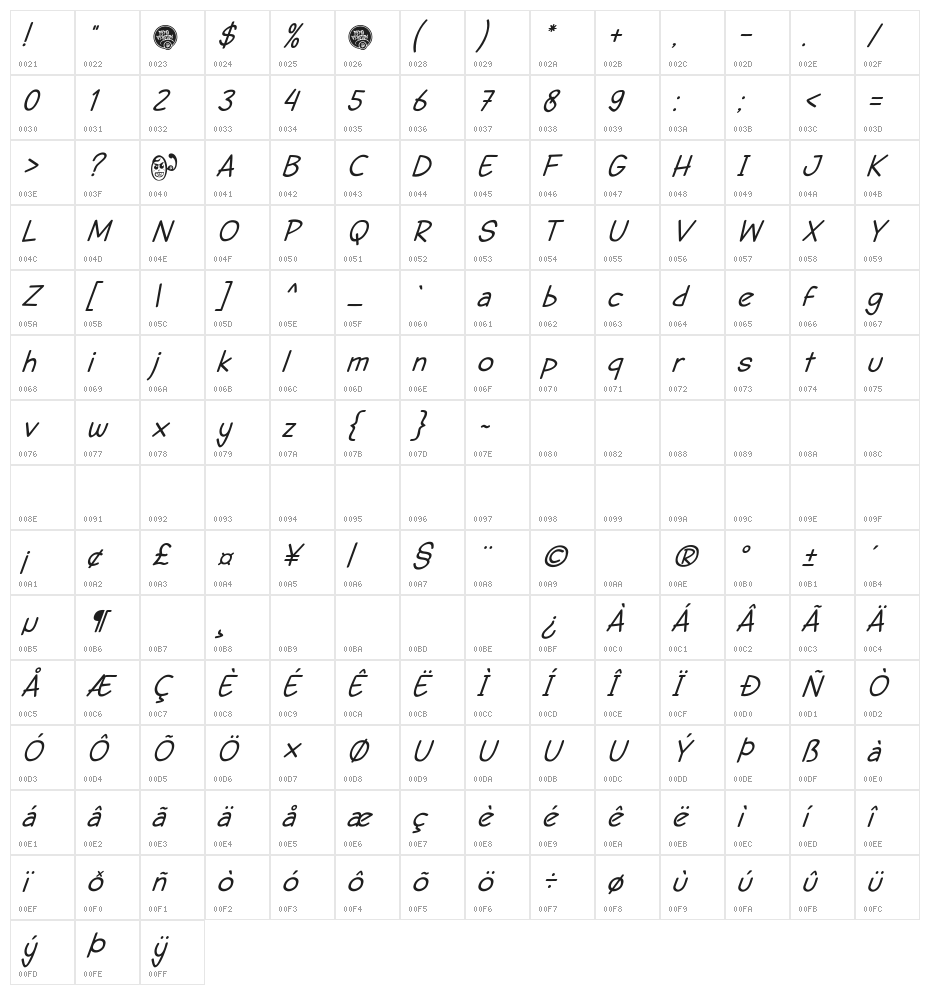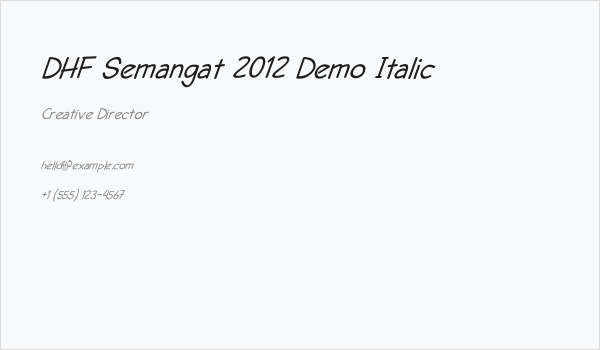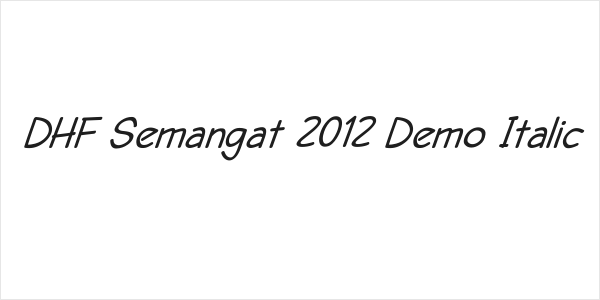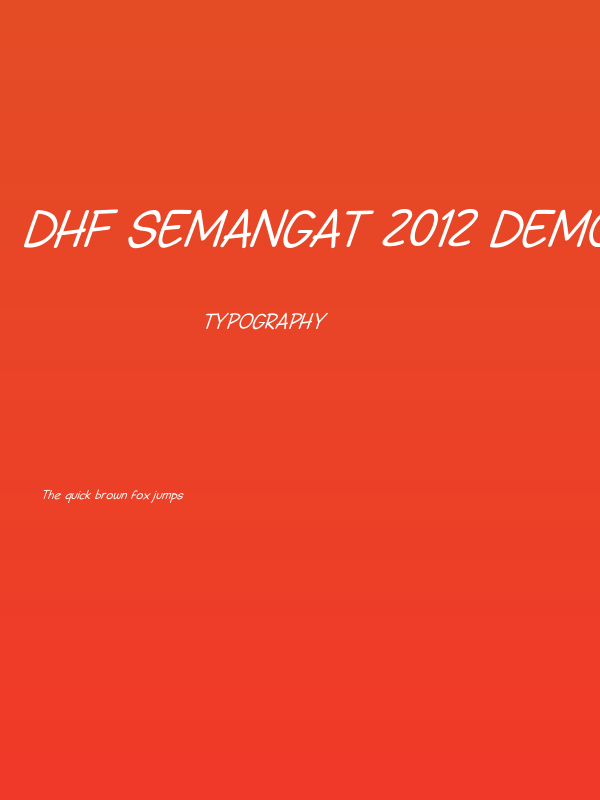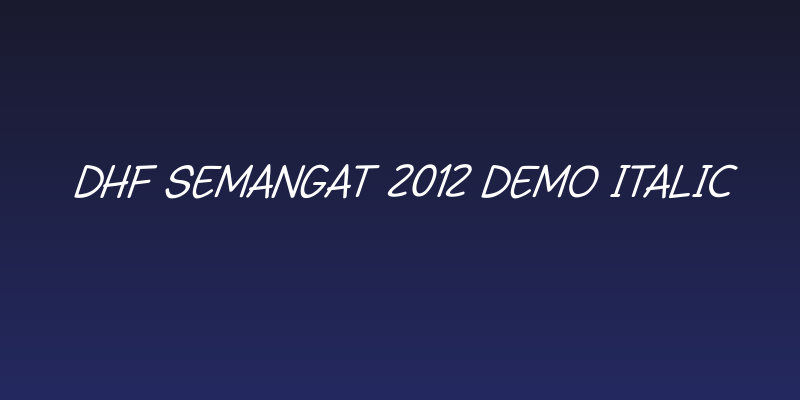
DHF Semangat 2012 Demo Italic Font
DHF Semangat 2012 Demo Italic Description
This font features a dynamic and energetic italic style, characterized by its fluid and slightly slanted letterforms. The strokes are smooth and continuous, giving it a handwritten appearance. The uppercase and lowercase letters maintain a consistent slant, enhancing the overall cohesion of the typeface. The numerals and special characters are designed to match the flowing style, ensuring uniformity across all elements. This font exudes a sense of movement and spontaneity, making it suitable for projects that require a personal touch.
| Proposed Projects | Ideal for greeting cards, invitations, personal branding, and creative projects that benefit from a handwritten aesthetic. |